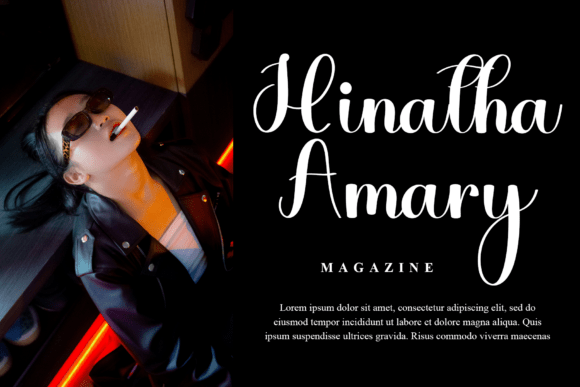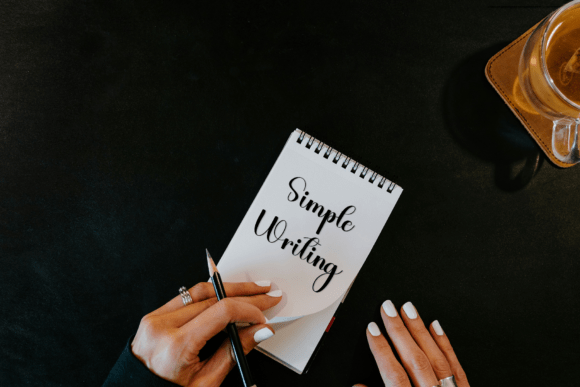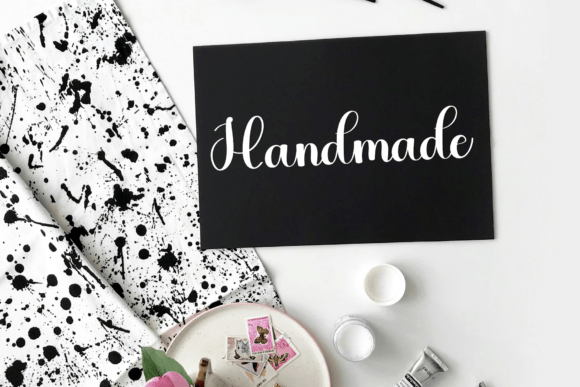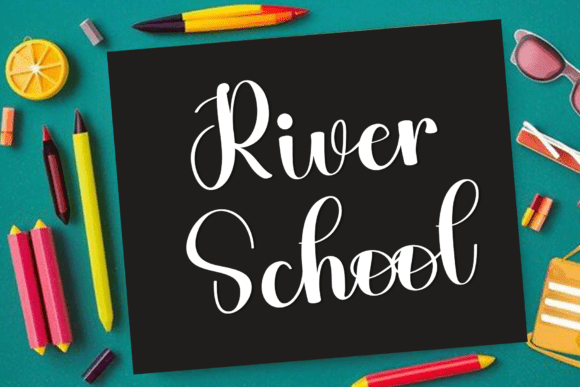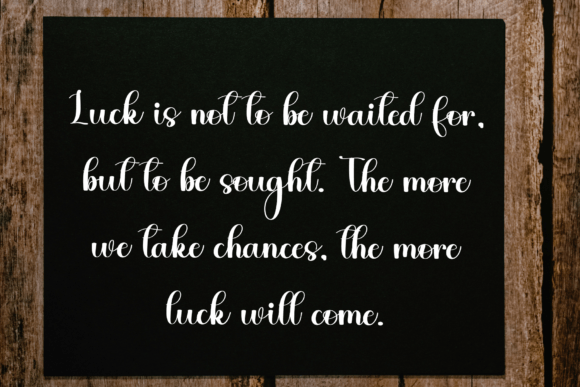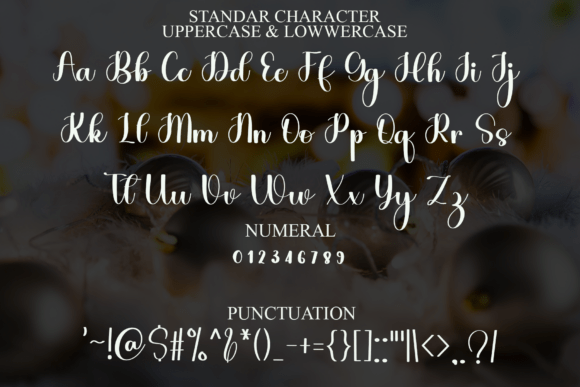
Dream Flourish Font: The Perfect Choice for Creative Designs
Are you looking for a font that can add a personal touch to your designs? Look no further than the Dream Flourish Font. This casual and creative font is perfect for designers and crafters who want to create unique and eye-catching designs. In this article, we’ll explore the features and benefits of the Dream Flourish Font and how it can elevate your designs.
The Charm of Dream Flourish Font
Dream Flourish Font is a hand-drawn font that exudes warmth and friendliness. Its round, playful strokes create a relaxed and approachable feel, making it perfect for personal projects, invitations, and social media graphics. The font’s charming aesthetic adds a fun and unique touch to any design, making it stand out from the crowd.
Key Features of Dream Flourish Font
- Casual and Creative: Dream Flourish Font is designed to be casual and creative, making it perfect for designers who want to add a personal touch to their designs.
- Hand-Drawn Aesthetic: The font’s hand-drawn aesthetic adds a unique and fun touch to any design, making it perfect for designers who want to create eye-catching designs.
- Multilingual Support: Dream Flourish Font supports multiple languages, making it a great choice for designers who work with clients from different parts of the world.
Dream Flourish Font is perfect for designers and crafters who want to create unique and eye-catching designs. Whether you’re working on a personal project, creating invitations, or designing social media graphics, this font is sure to impress. Its casual and creative vibe makes it perfect for:
- Personal Projects: Use Dream Flourish Font to add a personal touch to your personal projects, such as photo albums, scrapbooking, and more.
- Invitations: Create beautiful and unique invitations for special occasions, such as weddings, birthdays, and baby showers.
- Social Media Graphics: Use Dream Flourish Font to create eye-catching social media graphics that will grab the attention of your followers.
Why Choose Dream Flourish Font?
There are many fonts available in the market, but Dream Flourish Font stands out from the rest. Here are some reasons why you should choose Dream Flourish Font:
- Unique and Creative: Dream Flourish Font is a unique and creative font that will add a personal touch to your designs.
- Easily Readable: The font is easily readable, making it perfect for designs that require a lot of text.
- Versatile: Dream Flourish Font is versatile and can be used for a variety of design projects, from personal projects to commercial projects.
- High-Quality: The font is of high-quality, making it perfect for professional designs.
How to Use Dream Flourish Font
- Pair it with Other Fonts: Pair Dream Flourish Font with other fonts to create a unique and eye-catching design.
- Experiment with Colors: Experiment with different colors to find the perfect combination that works with your design.
- Use it for Headings: Use Dream Flourish Font for headings and titles to add a personal touch to your designs.
Dream Flourish Font is a casual and creative font that is perfect for designers and crafters who want to add a personal touch to their designs. Its unique and hand-drawn aesthetic makes it stand out from the rest, and its PUA Encoded glyphs make it compatible with various application engines. Whether you’re working on a personal project, creating invitations, or designing social media graphics, Dream Flourish Font is sure to impress.